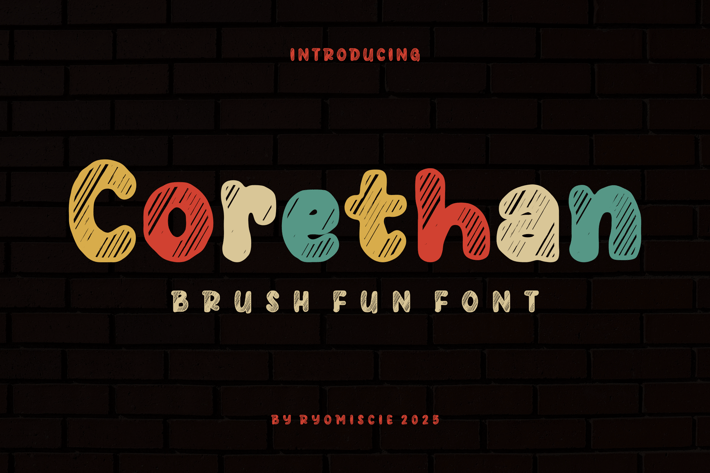
Corethan - Brush Fun Font
Introducing our new product Corethan Font - Modern Font
Corethan Font- Modern Font is a bold and authentic display font. The font is suitable for any branding project like logo,
t-shirt printing, esport, and many more. outstanding in a wide range of contexts.
Corethan Uppercase
Corethan Lowercase